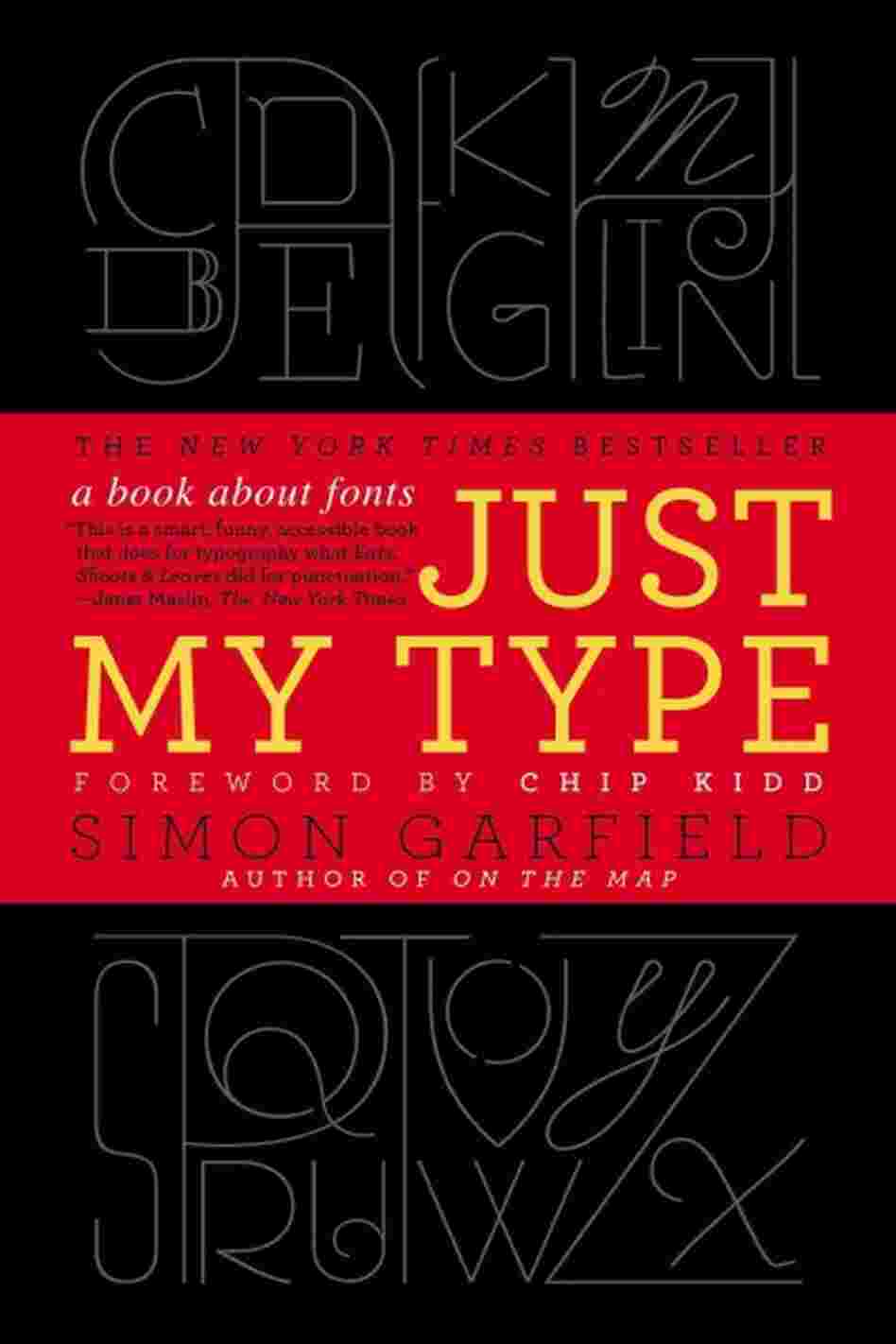
Just My Type
A Book About Fonts
Book Summary
Documents the history of typefaces from the early days of Gutenberg to the modern applications of digital fonts, tracing the impact of font usage in business and pop culture while explaining what favorite fonts reveal about personality.
One might call Just My Type a history of typography, but it's more of a series of mediations. From hand-lettering to Gutenberg to hot metal type to computer graphics, Garfield's story is filled with twists and turns, and what I can only call typography gossip, reflected on the most vilified types, such as Comic Sans, to the long-standing feud between Helvetica and Arial, and just how much wrath Ikea incurred when it changed typefaces from Futura to Verdana. It's about the creativity... more
Know The Font Of This Headline? You're 'Just My Type'
September 4, 2011 Are you an Arial person? A Times New Roman? A Garamond? Like the car you drive or the clothes you wear, your typeface can help express your personality. Author Simon Garfield talks about the fashion of fonts ... and why so many people hate Comic Sans.
Fond Of Fonts? Check Out 'Just My Type'
September 1, 2011 Simon Garfield's lively, richly illustrated history of typefaces is an eye-opening — and sometimes eye-straining — read.
Excerpt: Just My Type: A Book About Fonts
Introduction: Love Letters
On 12 June 2005, a fifty-year-old man stood up in front of a crowd of students at Stanford University and spoke of his campus days at a 'lesser institution' — Reed College in Portland, Oregon. 'Throughout the campus,' he remembered, 'every poster, every label on every drawer, was beautifully hand calligraphed. Because I had dropped out and didn't have to take the normal classes, I decided to take a calligraphy class to learn how to do this. I learned about serif and sans serif typefaces, about varying the amount of space between different letter combinations, about what makes great typography great. It was beautiful, historical, artistically subtle in a way that science can't capture, and I found it fascinating.'
At the time, the student, who would later drop out of college, believed that nothing he had learned would find a practical application in his life. But things changed. Ten years after his college experience, that man, by the name of Steve Jobs, designed his first Macintosh computer, a machine that came with something unprecedented — a wide choice of fonts. As well as including familiar types such as Times New Roman and Helvetica, Jobs introduced several new designs, and had evidently taken some care in their appearance and naming. They were named after cities he loved, such as Chicago and Toronto. He wanted each of them to be as distinct and beautiful as the calligraphy he had encountered a decade earlier, and at least two of the fonts — Venice and Los Angeles — had a handwritten look to them.
It was the beginning of something — a seismic shift in our everyday relationship with letters and with type. An innovation that, within another decade or so, would place the word 'font' — previously a piece of technical language limited to the design and printing trade — in the vocabulary of every computer user.
You can't easily find Jobs's original typefaces these days, which may be just as well: they are coarsely pixelated and cumbersome to manipulate. But the ability to change fonts at all seemed like technology from another planet. Before the Macintosh of 1984, primitive computers offered up one dull typeface, and good luck trying to italicize it. But now there was a choice of alphabets that did their best to re-create something we were used to from the real world. Chief among them was Chicago, which Apple used for all its menus and dialogs on screen, right through to the early iPods. But you could also opt for old black letters that resembled the work of Chaucerian scribes (London), clean Swiss letters that reflected corporate modernism (Geneva), or tall and airy letters that could have graced the menus of ocean liners (New York). There was even San Francisco, a font that looked as if it had been torn from newspapers — useful for tedious school projects and ransom notes.
IBM and Microsoft would soon do their best to follow Apple's lead, while domestic printers (a novel concept at the time) began to be marketed not only on their speed but for the variety of their fonts. These days the concept of 'desktop publishing' conjures up a world of dodgy party invitations and soggy community magazines, but it marked a glorious freedom from the tyranny of
professional typesetters and the frustrations of rubbing a sheet of Letraset. A personal change of typeface really said something: a creative move towards expressiveness, a liberating playfulness with words.
And today we can imagine no simpler everyday artistic freedom than that pull-down font menu. Here is the spill of history, the echo of Johannes Gutenberg with every key tap. Here are names we recognize: Helvetica, Times New Roman, Palatino and Gill Sans. Here are the names from folios and flaking manuscripts: Bembo, Baskerville and Caslon. Here are possibilities for flair: Bodoni, Didot and Book Antiqua. And here are the risks of ridicule: Brush Script, Herculanum and Braggadocio. Twenty years ago we hardly knew them, but now we all have favourites. Computers have rendered us all gods of type, a privilege we could never have anticipated in the age of the typewriter.
Yet when we choose Calibri over Century, or the designer of an advertisement picks Centaur rather than Franklin Gothic (which are both American and both created at the start of the twentieth century but are very different from each other), what lies behind our choice and what impression do we hope to create? When we choose a typeface, what are we really saying? Who makes these fonts and how do they work? And just why do we need so many? What are we to do with Alligators, Accolade, Amigo, Alpha Charlie, Acid Queen, Arbuckle, Art Gallery, Ashley Crawford, Arnold Bocklin, Andreena, Amorpheus, Angry and Anytime Now? Or Banjoman, Bannikova, Baylac, Binner, Bingo, Blacklight, Blippo or Bubble Bath? (And how lovely does Bubble Bath sound, with its thin floating circles ready to pop and dampen the page?) There are more than 100,000 fonts in the world. But why can't we keep to a half-dozen or so — perhaps familiar faces like Times New Roman, Helvetica, Calibri, Gill Sans, Frutiger or Palatino? Or the classic, Garamond, named after the type designer Claude Garamond, active in Paris in the first half of the sixteenth century, whose highly legible roman type blew away the heavy fustiness of his German predecessors and later, adapted by William Caslon in England, would provide the letters for the American Declaration of Independence.